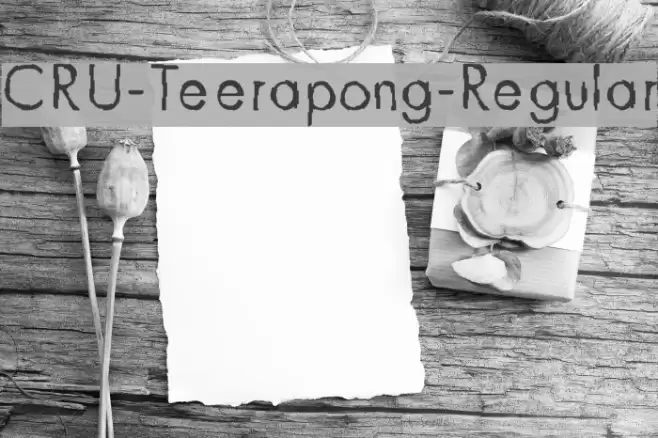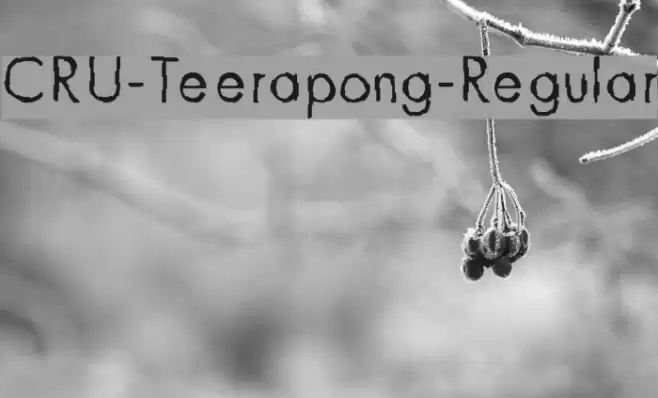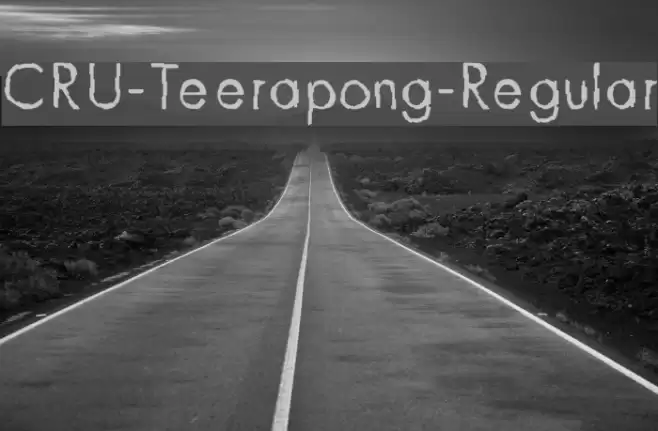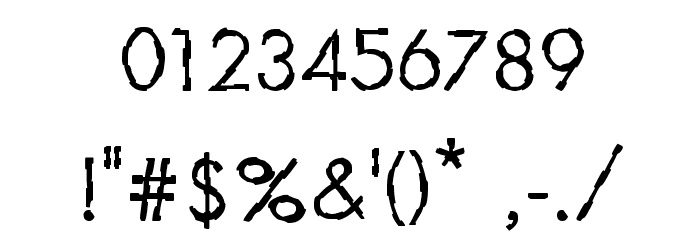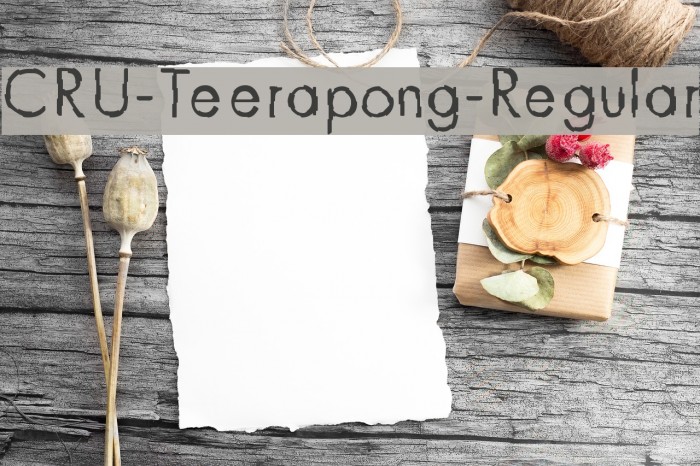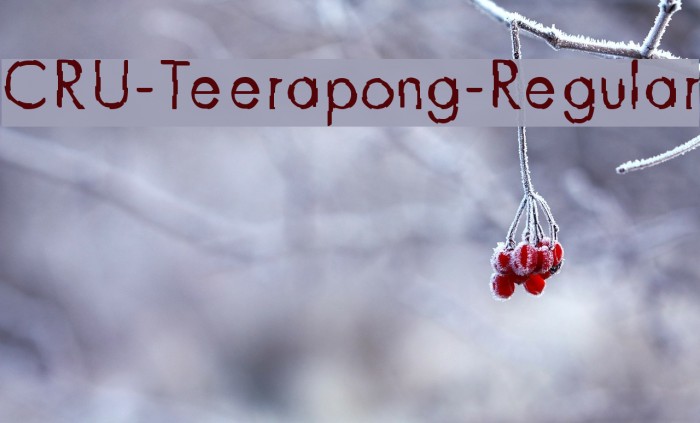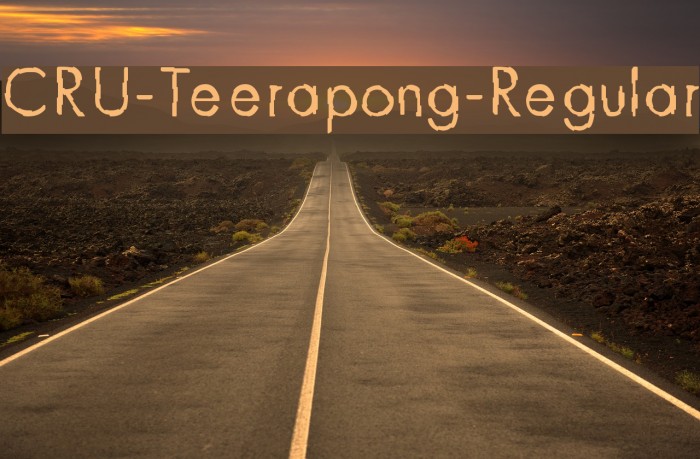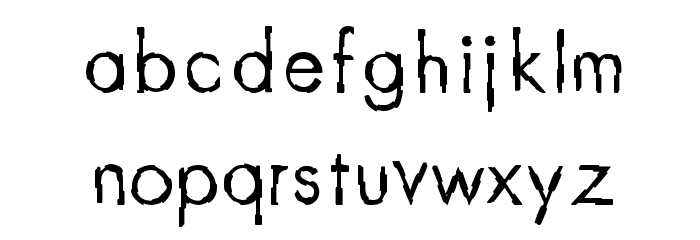
CRU-Teerapong-Regular Font
CRU-Teerapong-Regular Description
This font features a unique, hand-drawn aesthetic with a slightly irregular and organic feel. The characters are crafted with a playful yet sophisticated touch, making them stand out with their distinct, uneven strokes. The uppercase letters are bold and assertive, while the lowercase letters maintain a consistent style that complements the overall design. Numbers and special characters are designed to match the quirky and artistic vibe of the alphabet, ensuring a cohesive look across all text elements. The font's charm lies in its imperfect lines, which add a personal and approachable quality to any project.
A hand-drawn, playful font with irregular strokes and a unique, artistic style from Uncategorized fonts.
- Proposed Projects: Ideal for creative projects such as invitations, greeting cards, posters, and branding materials that seek a personal and artistic touch.
- Use Case: Logos, Headlines, Creative projects